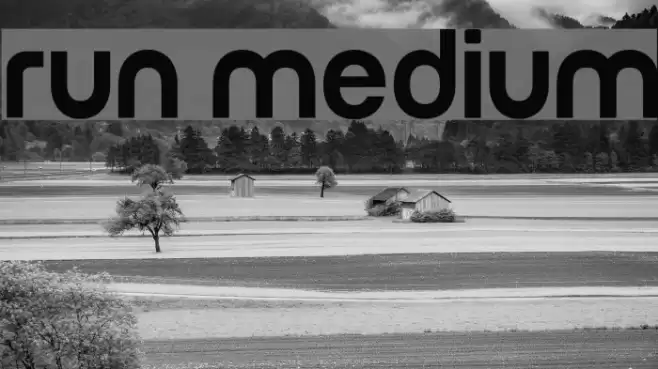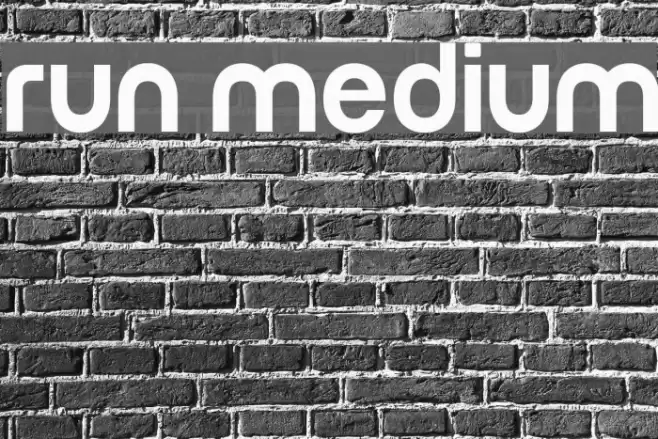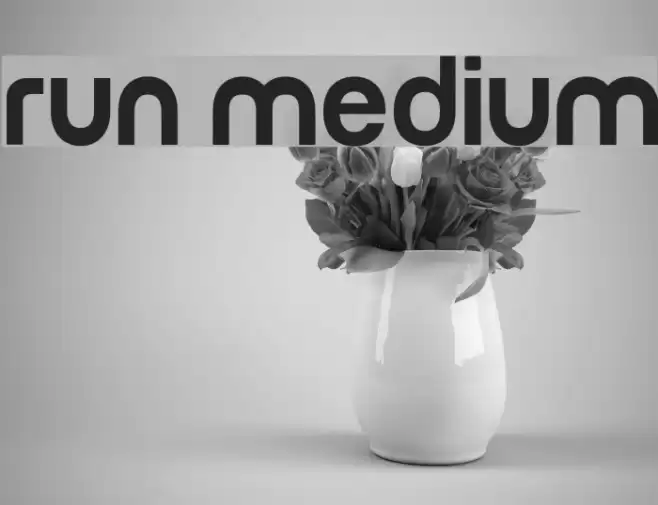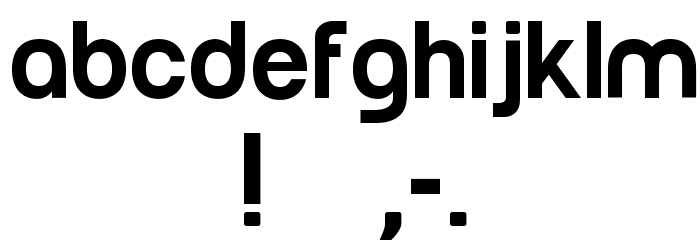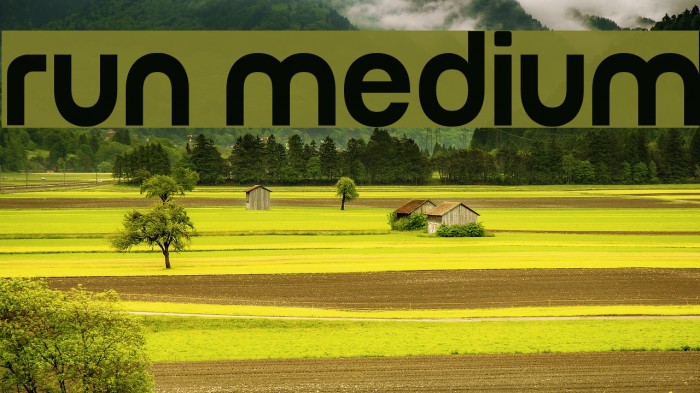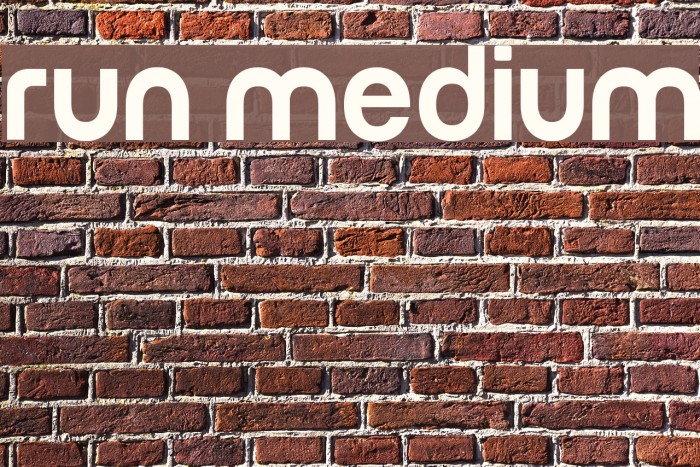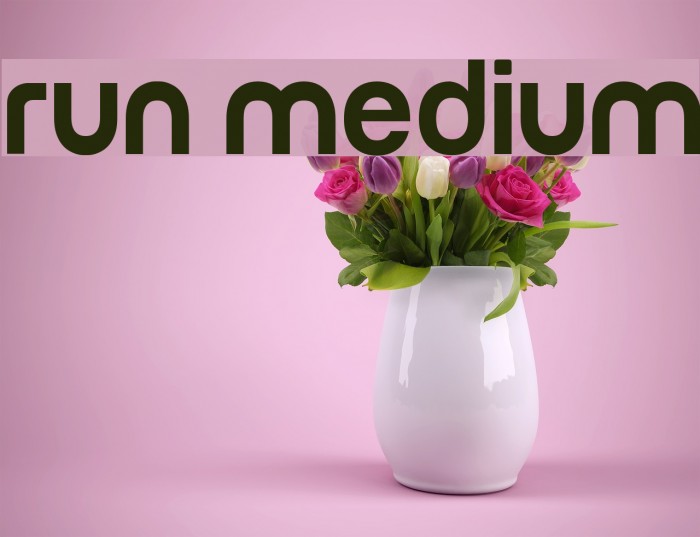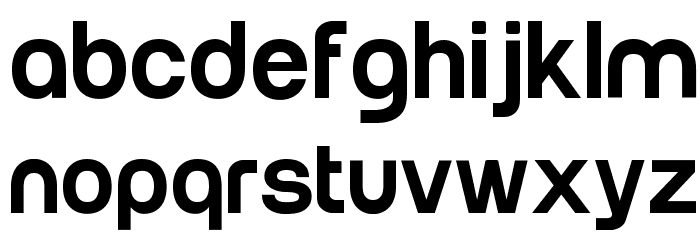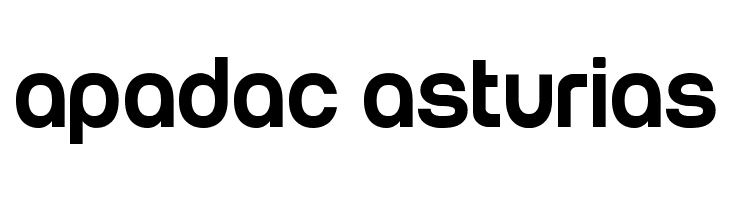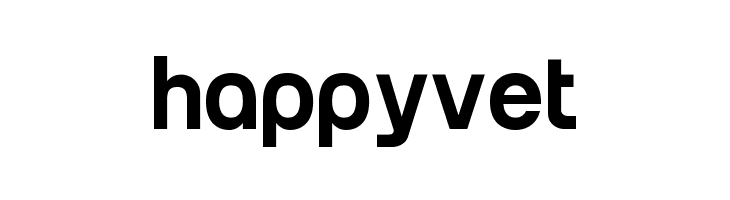
Run Medium Font
Run Medium Description
This font exhibits a clean and modern sans-serif style, characterized by its bold and uniform stroke weight. The characters are well-balanced with a geometric feel, providing a sense of stability and clarity. The rounded edges of the letters add a touch of friendliness, making it approachable while maintaining a professional appearance. The consistent stroke width throughout the characters ensures readability and versatility across various applications. Its simplicity and straightforward design make it suitable for both digital and print media, where clarity and impact are essential.
A bold, modern sans-serif font with geometric and rounded characteristics.
- Proposed Projects: Ideal for branding, advertising, headlines, and digital interfaces where clarity and impact are crucial.
- Category: Sans-Serif
- Use Case: Headlines, Logos, Digital interfaces